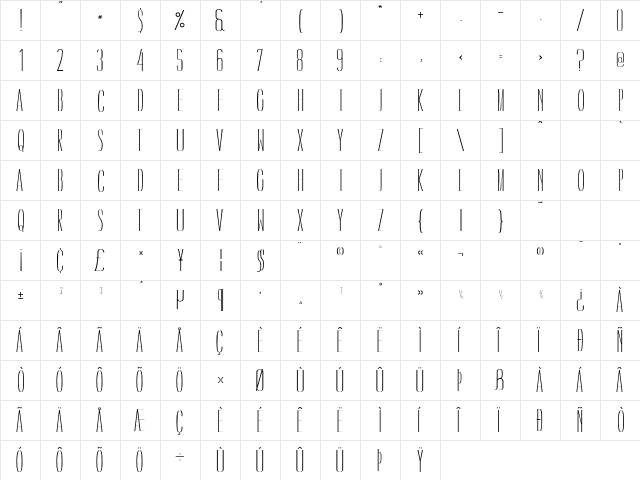
Caledo Light
Design Context for Caledo Typeface
Caledo takes a measured approach to typography — its balanced proportions and neutral character make it a reliable workhorse for both digital and print work. Its slender proportions lend an understated elegance to any composition.